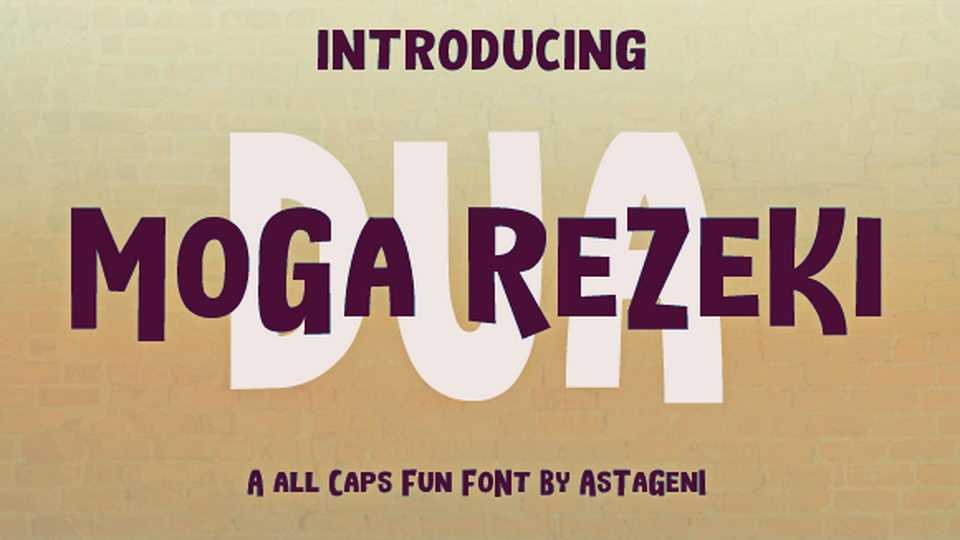
Download Moga Rezeki Dua font, a fun and playful all caps display typeface. Moga Rezeki Dua font fits great for posters, kids products, games and books, crafts and more.
Designer: Nur Solikh